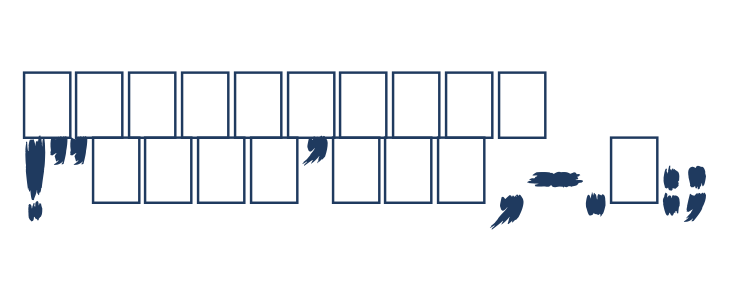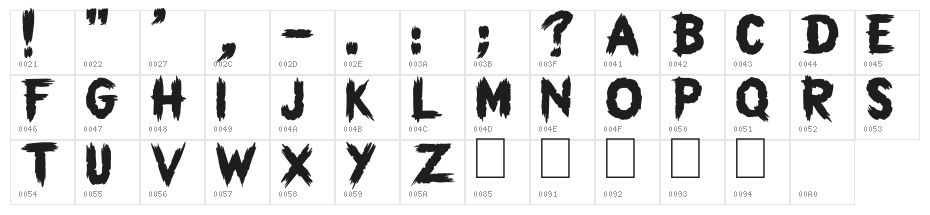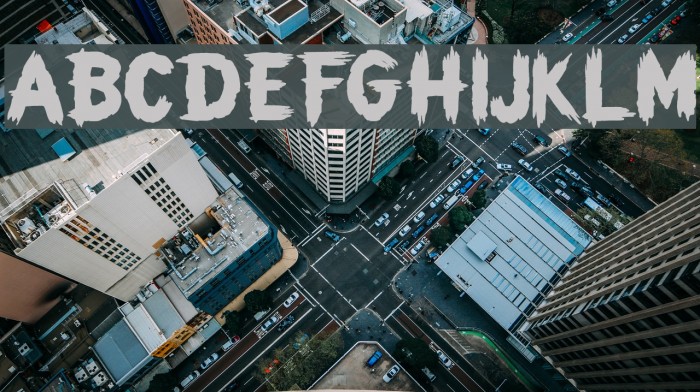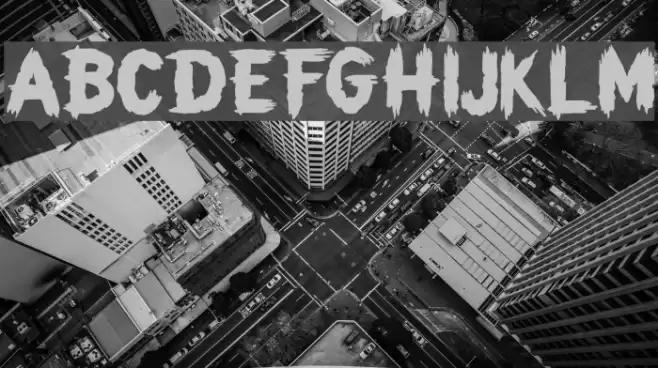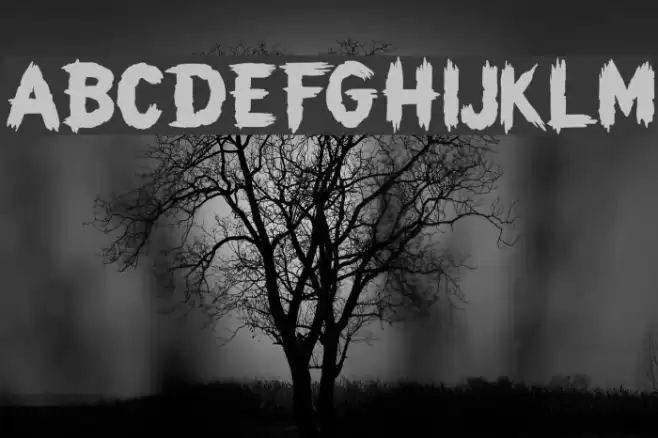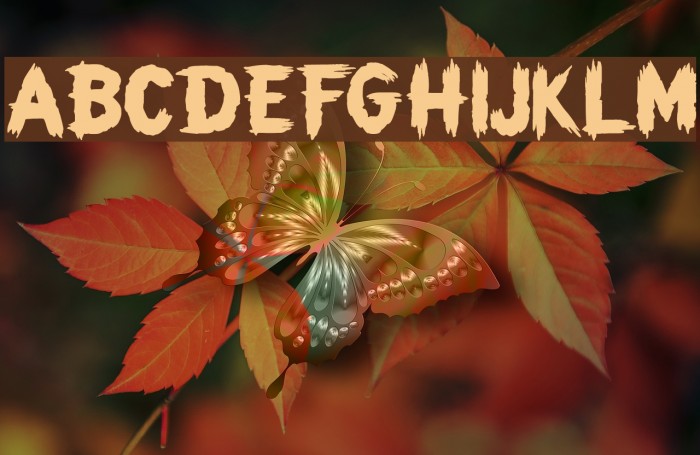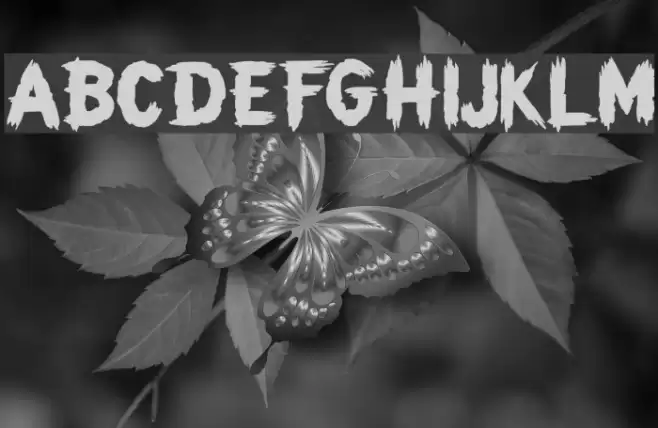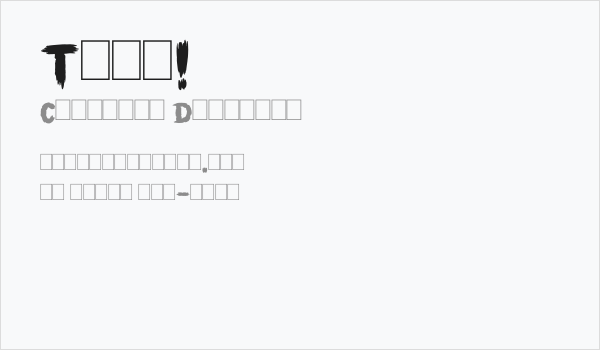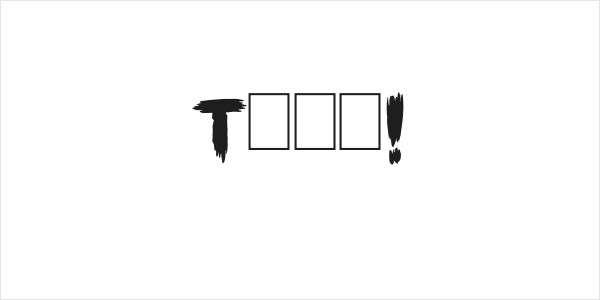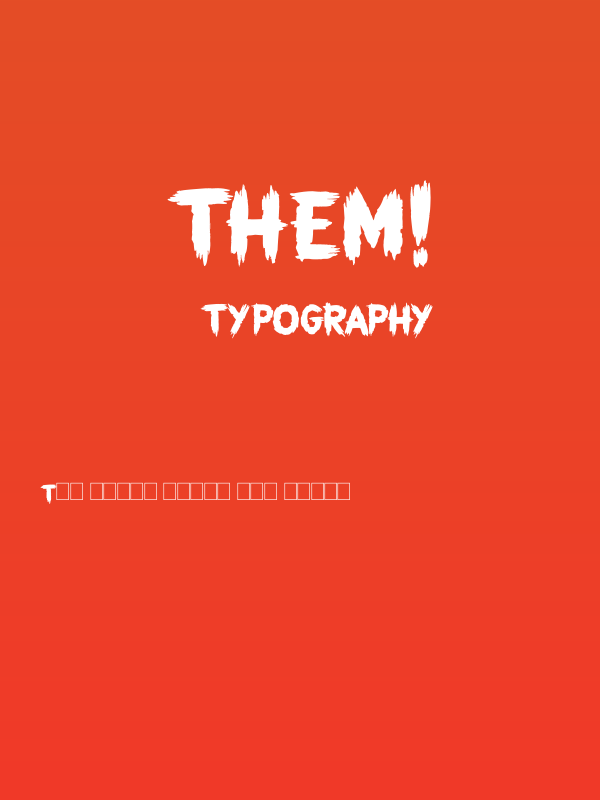
Them! Font
Them! Description
This font features a bold and dynamic brushstroke style, characterized by its rough, jagged edges and energetic appearance. The uppercase letters are particularly striking, with each character exhibiting a sense of movement and intensity. The font's design is reminiscent of hand-painted signs, with a raw and expressive quality that commands attention. The strokes vary in thickness, adding to the overall dramatic effect. This font is ideal for projects that require a strong visual impact, such as posters, album covers, or branding for edgy or artistic ventures.
| Proposed Projects | Perfect for posters, album covers, branding for artistic or edgy projects. |